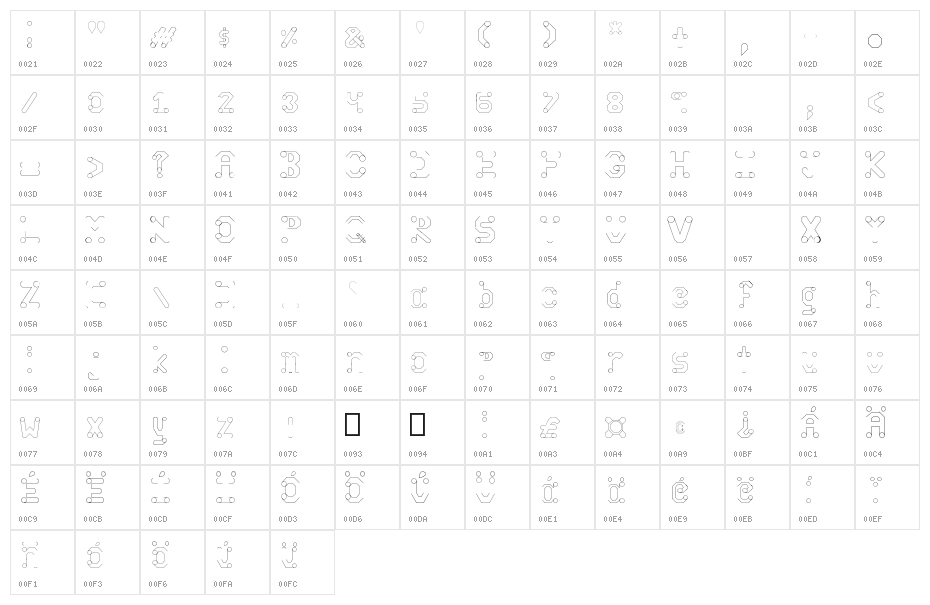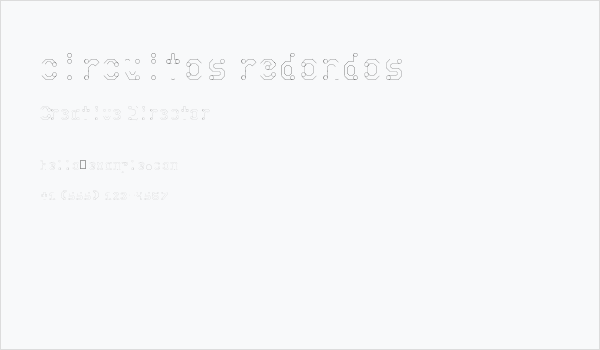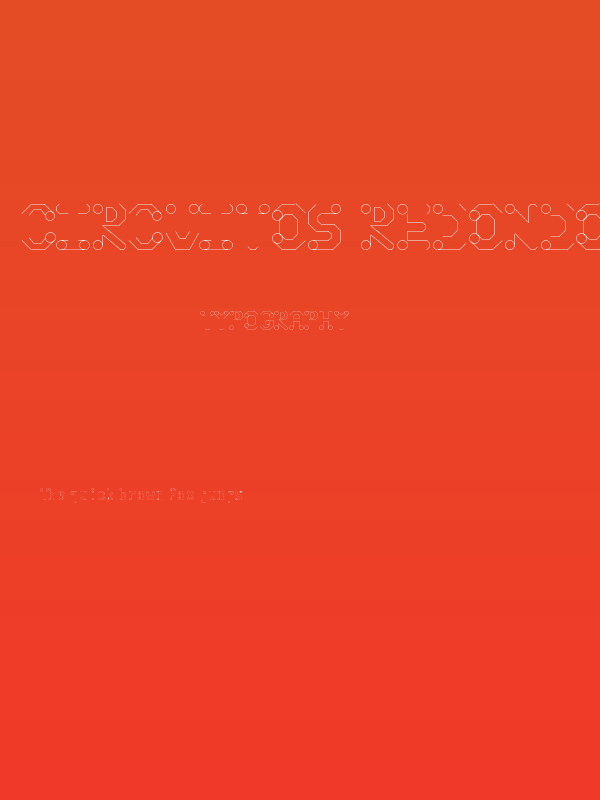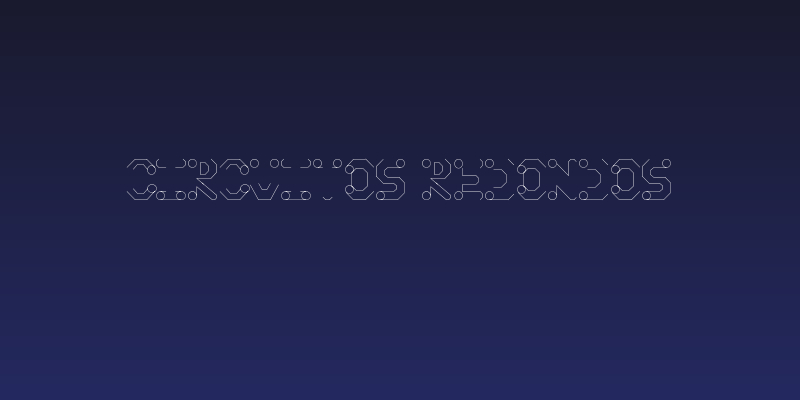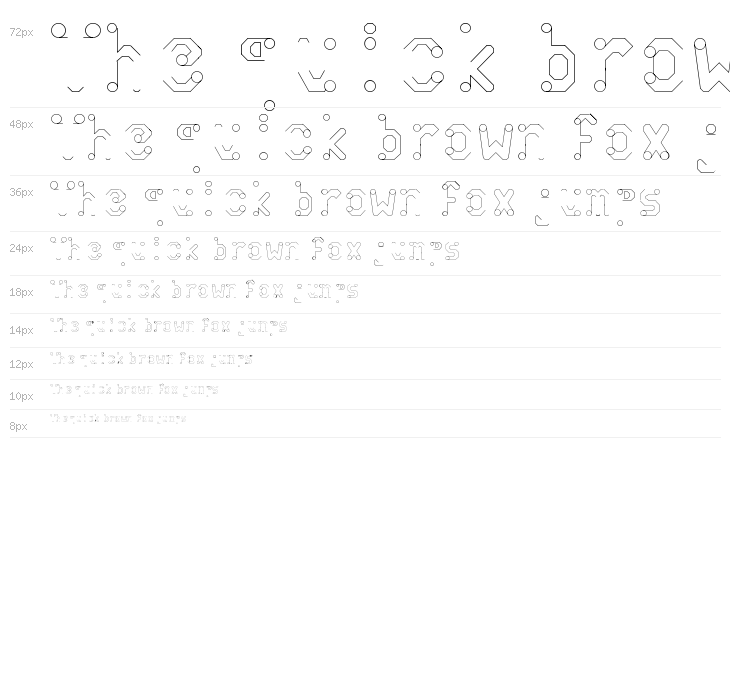
circuitos redondos Font
circuitos redondos Description
This font features a unique design that combines geometric shapes with a circuit-like aesthetic. Each character is composed of rounded corners and circular nodes connected by straight lines, creating a futuristic and technical appearance. The uppercase and lowercase letters maintain a consistent style, with the same structural elements applied to numbers and special characters. This font's distinct look is both modern and playful, making it suitable for creative and tech-oriented projects.
| Proposed Projects | Ideal for tech branding, futuristic designs, digital art projects, and educational materials related to technology. |